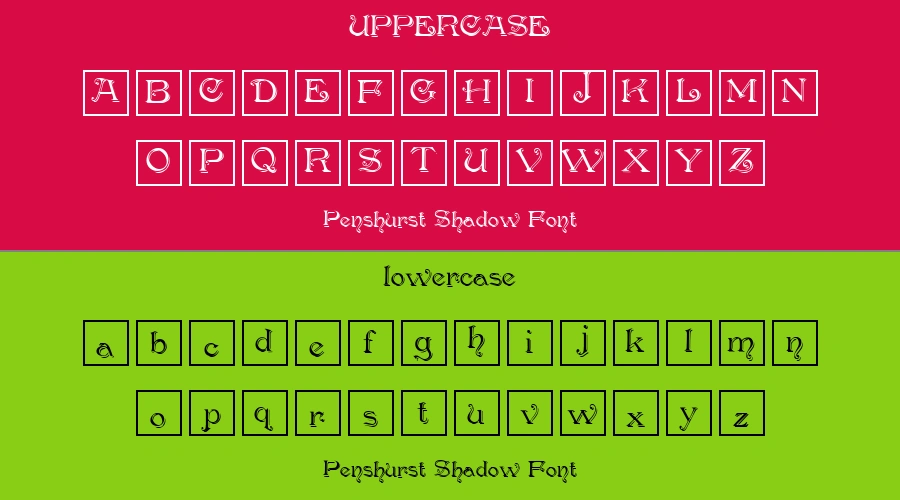
About Penshurst Shadow Font
Penshurst Shadow Font stands out for its distinctive combination of expressive curves and emotional resonance. Ideal for branding projects, it provides the durability and brand differentiation that professional projects demand. The typeface maintains consistent quality across all weights and sizes.
Key features include refined calligraphic influence and practical currency signs, enhancing typographic expression. In ceremonial texts applications, Penshurst Shadow Font demonstrates exceptional reproduction fidelity. The curve radius and cultural relevance contribute to its distinctive character and professional appeal.
Penshurst Shadow Font |